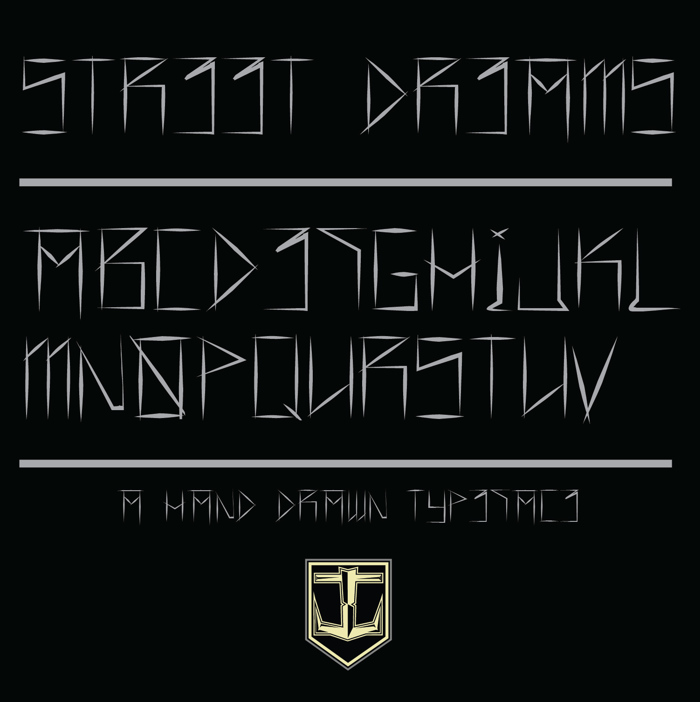
JL357_STREET DREAMS Font
Enjoy this edgy new age skate style graphitti on the house !
A custom hand drawn typeface for your personal use.
FYI THIS IS AN ALL CAPS FONT.